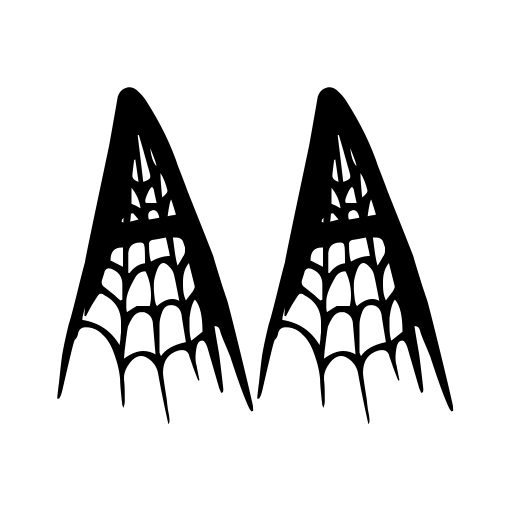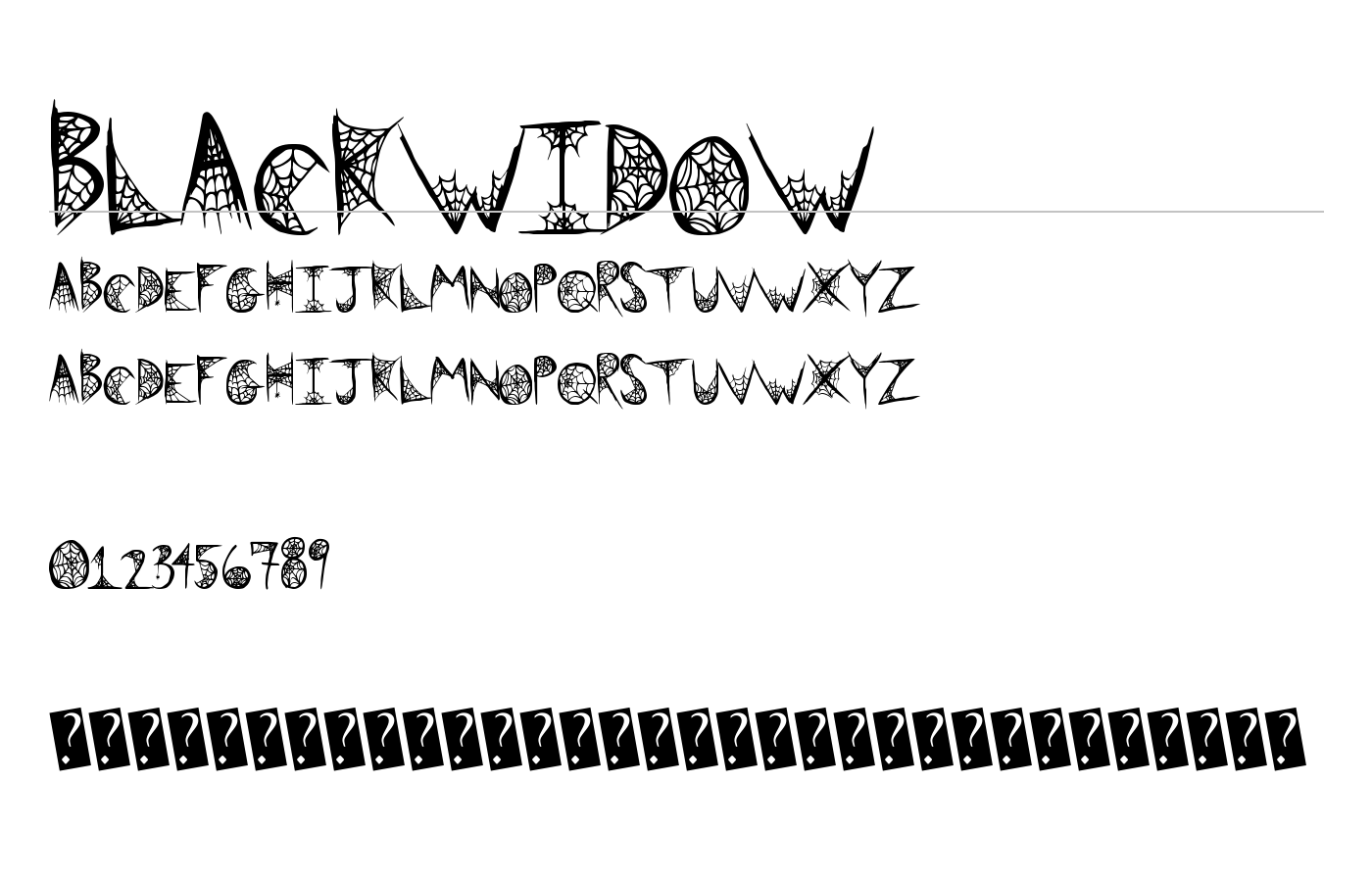
BlackWidow is a decorative, spooky-themed font with intricate spiderweb details woven through each character, making it perfect for Halloween or horror-related designs. Its irregular, sharp strokes and narrow letterforms create an eerie yet playful vibe, best suited for headlines, posters, and themed branding where a bold, attention-grabbing style is desired. This font excels in creating a mysterious and whimsical atmosphere, ideal for event promotions or creative, seasonal projects.
BlackWidow Font
About BlackWidow Font